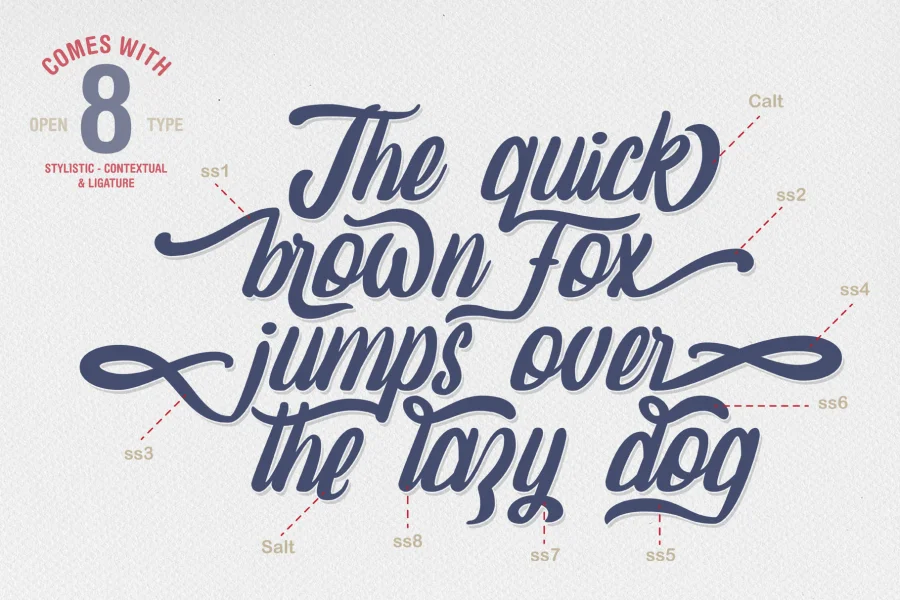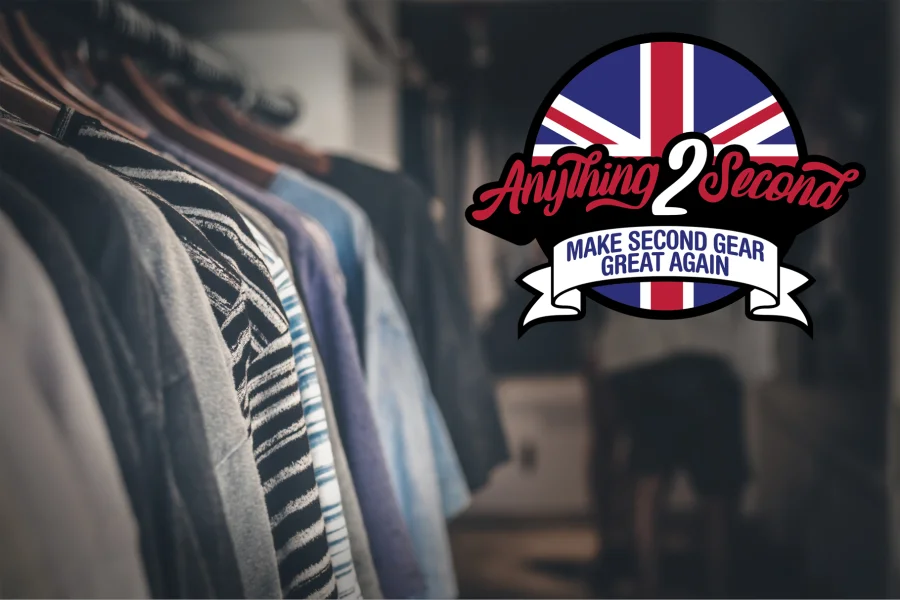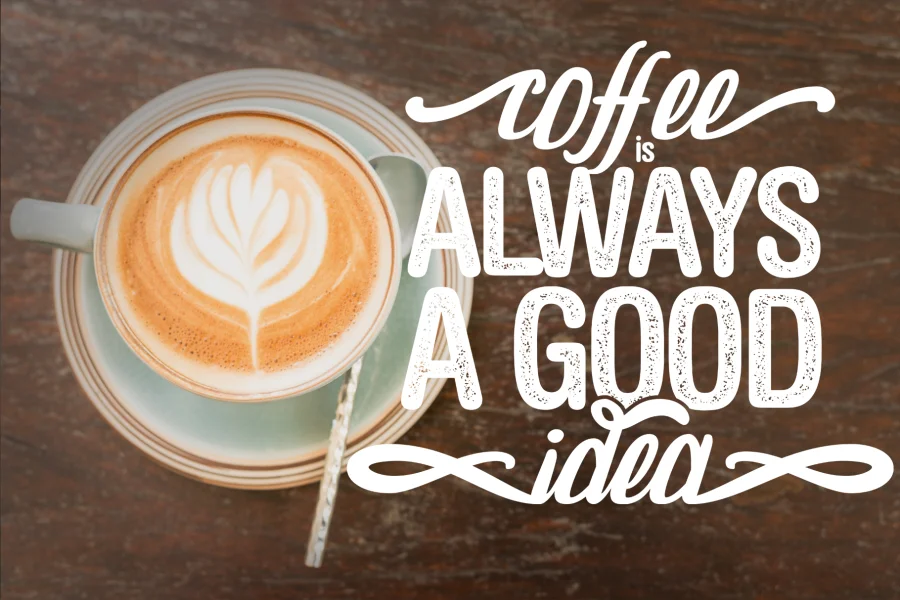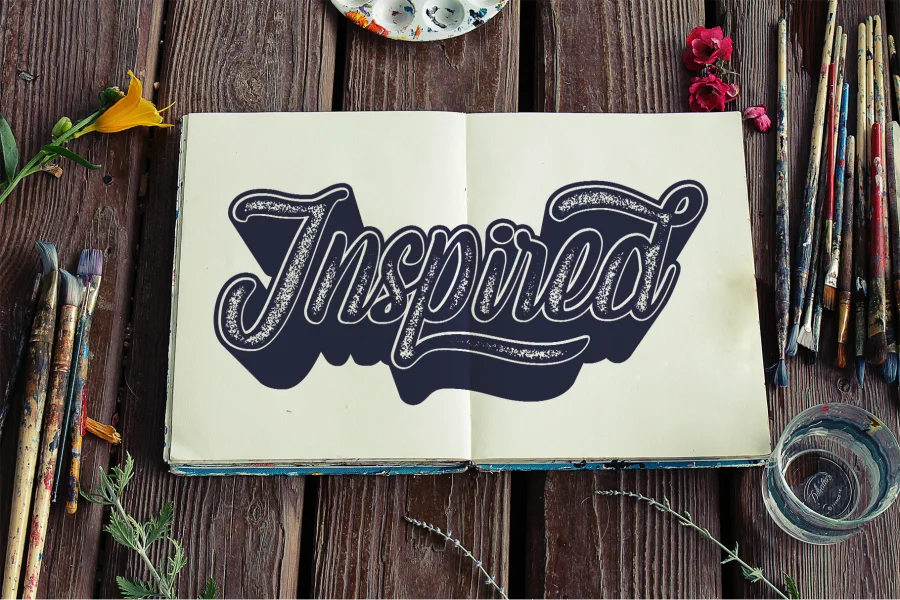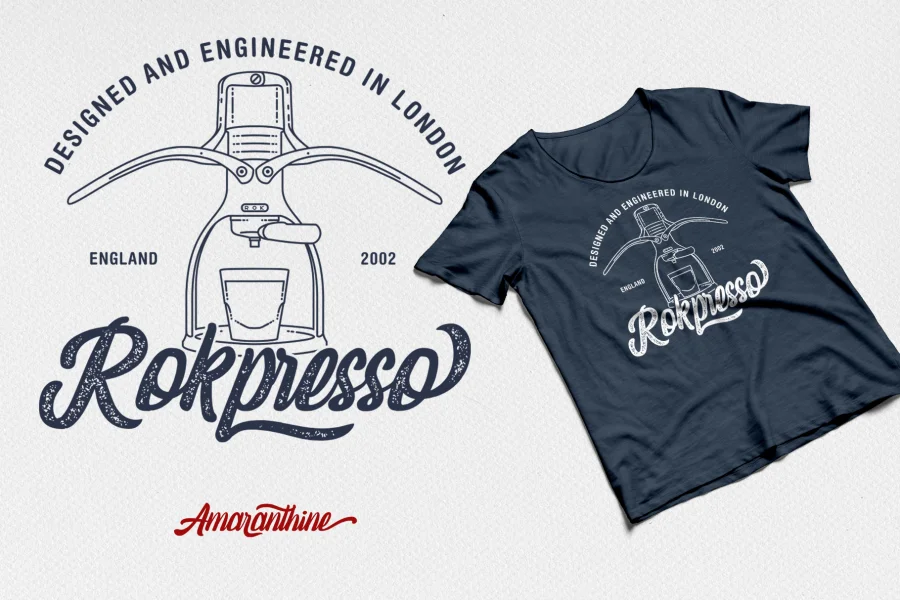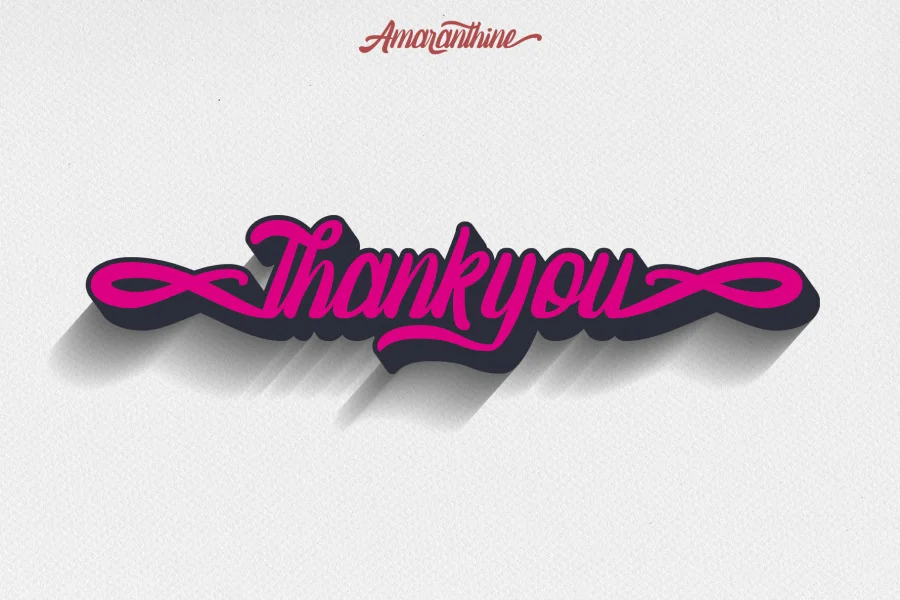
Amaranthine Script is smooth and vintage font script. Comes with many opentype feature, upper and lower case standard character set, punctuation and numerals, multilingual characters, ligatures, stylistic alternates and many more glyph.